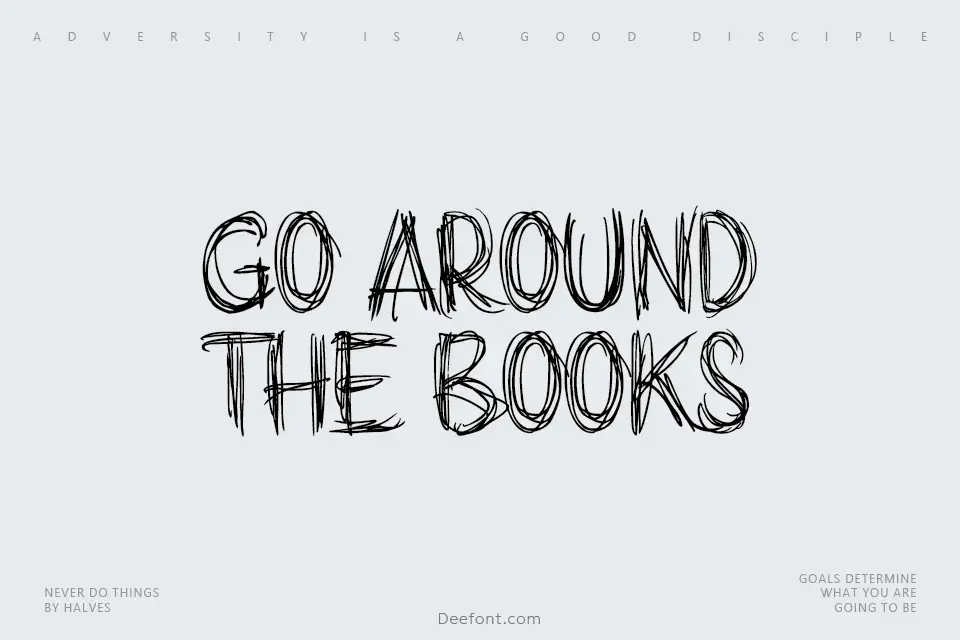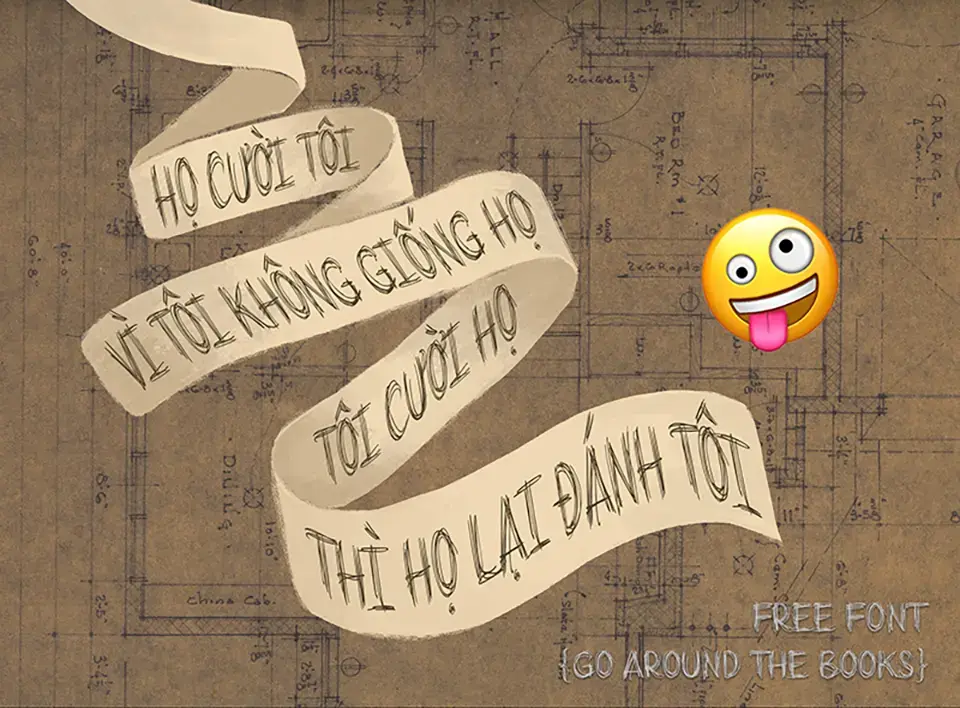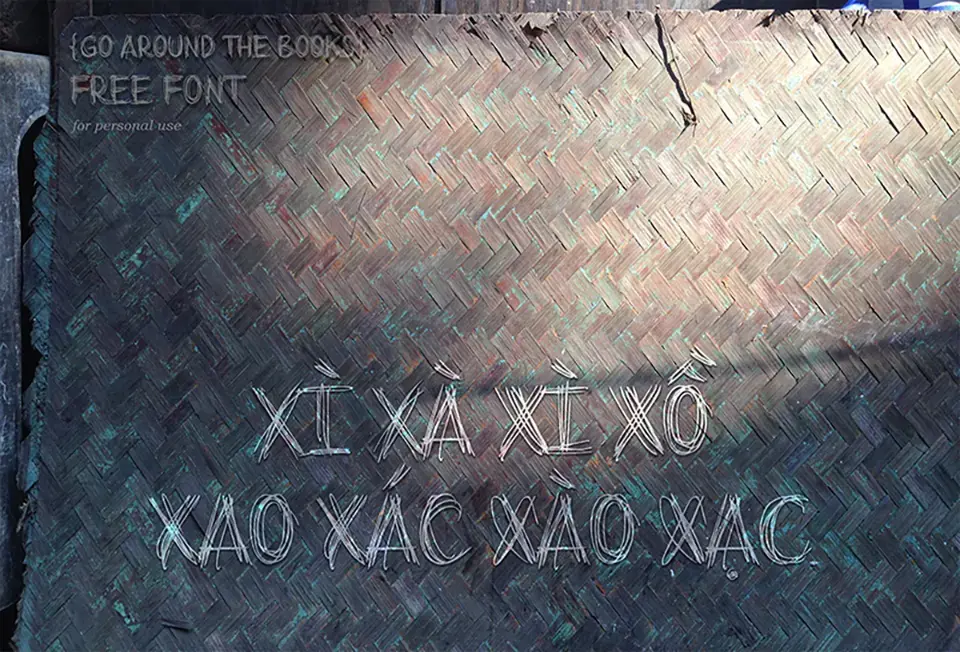
Go around the books Font
Go around the books is a lively handwritten script font packed with looping strokes, alternates and playful imperfections that feel like quick notes in a sketchbook. Its tall, freely flowing letters and casual curves create an expressive, storybook mood perfect for eye-catching titles, book and magazine covers, quote graphics, social media posts and cozy branding. Use it to add a human, whimsical touch to invitations, packaging, DIY projects and seasonal designs where a warm, personal handwriting style is essential.
Designed by:PoemhaikuWebsite